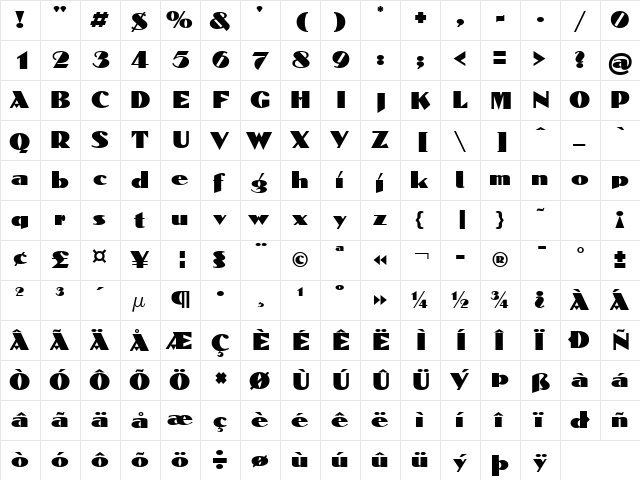
Dominon Normal
Design Context for Dominon Typeface
Dominon is a composed and adaptable typeface that performs quietly and consistently across a wide range of design contexts.